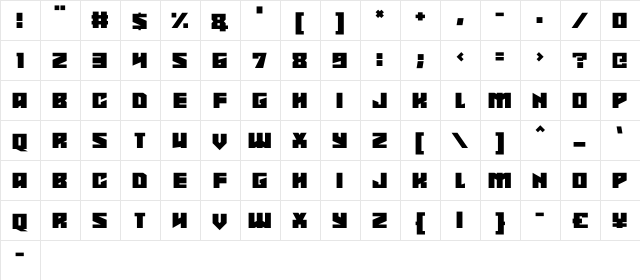
Shadowkingz Regular
Design Context for Shadowkingz Typeface
Shadowkingz is built around its visual character rather than neutral utility — its distinctive forms are designed to make an impression at display sizes.
Font Pairing: Pair with a clean neutral sans-serif for body copy to let Shadowkingz's character lead without overwhelming the composition.
Pro Tip: Use Shadowkingz exclusively at display sizes — it was designed to be seen, not read at length. Let a neutral companion handle body copy.